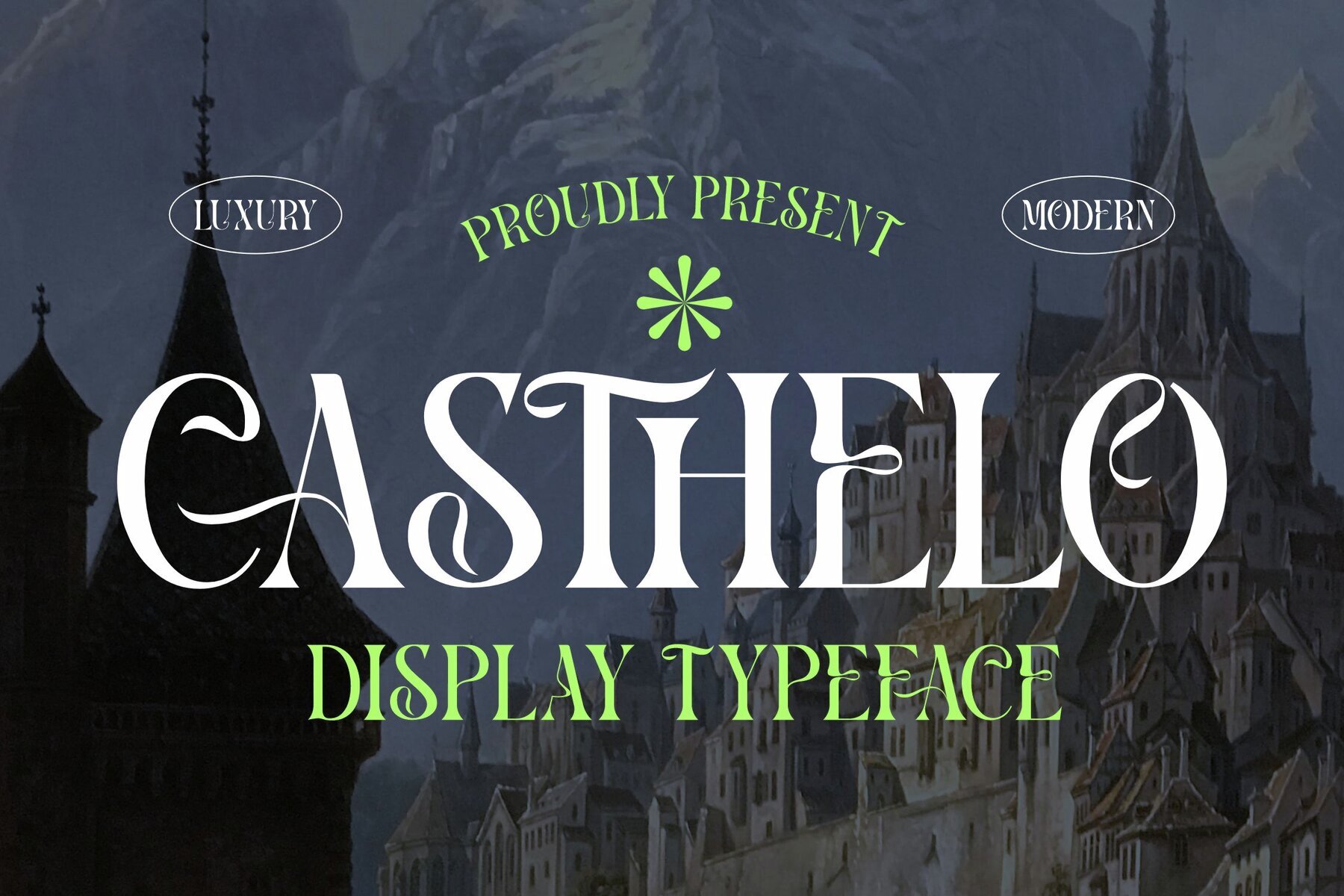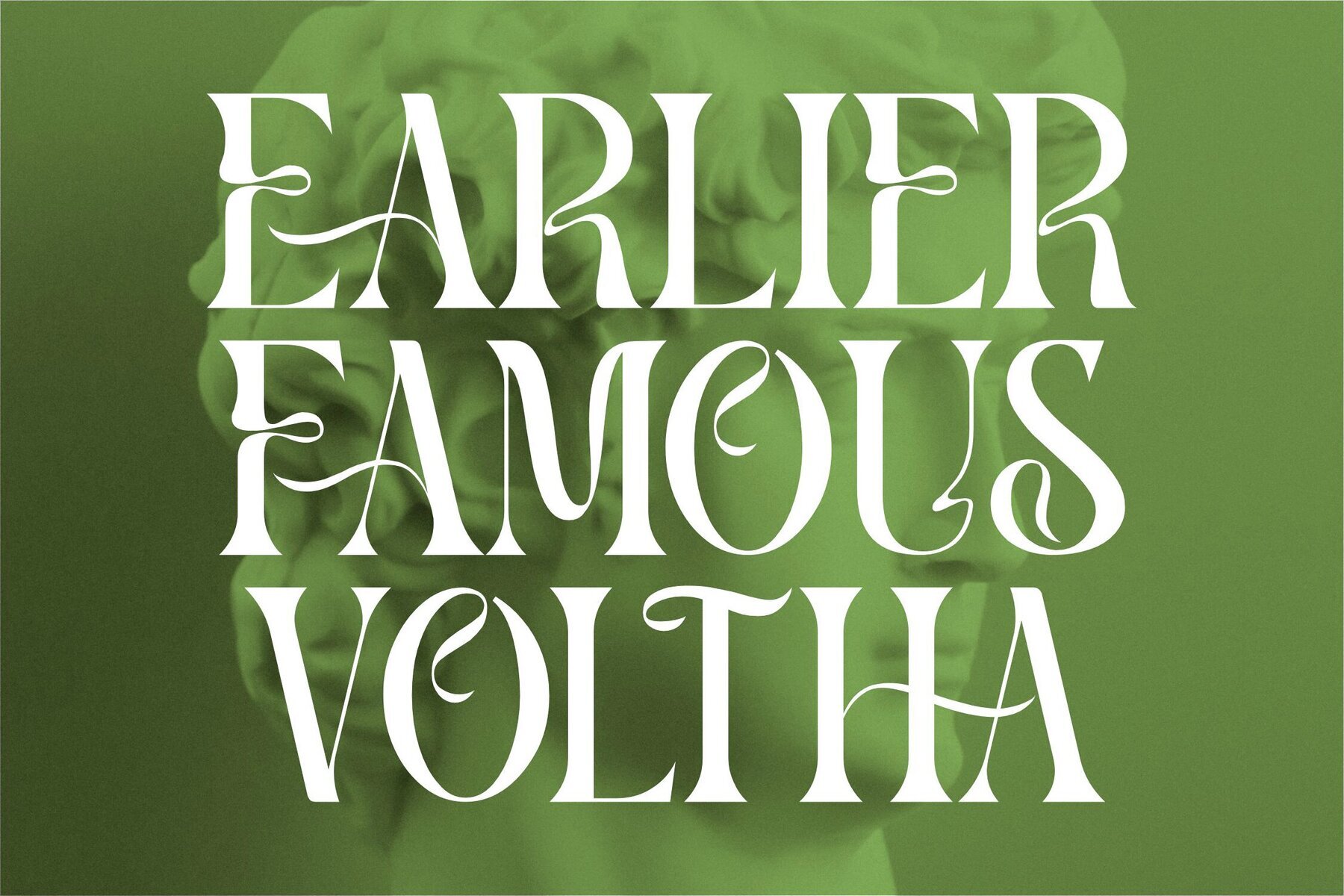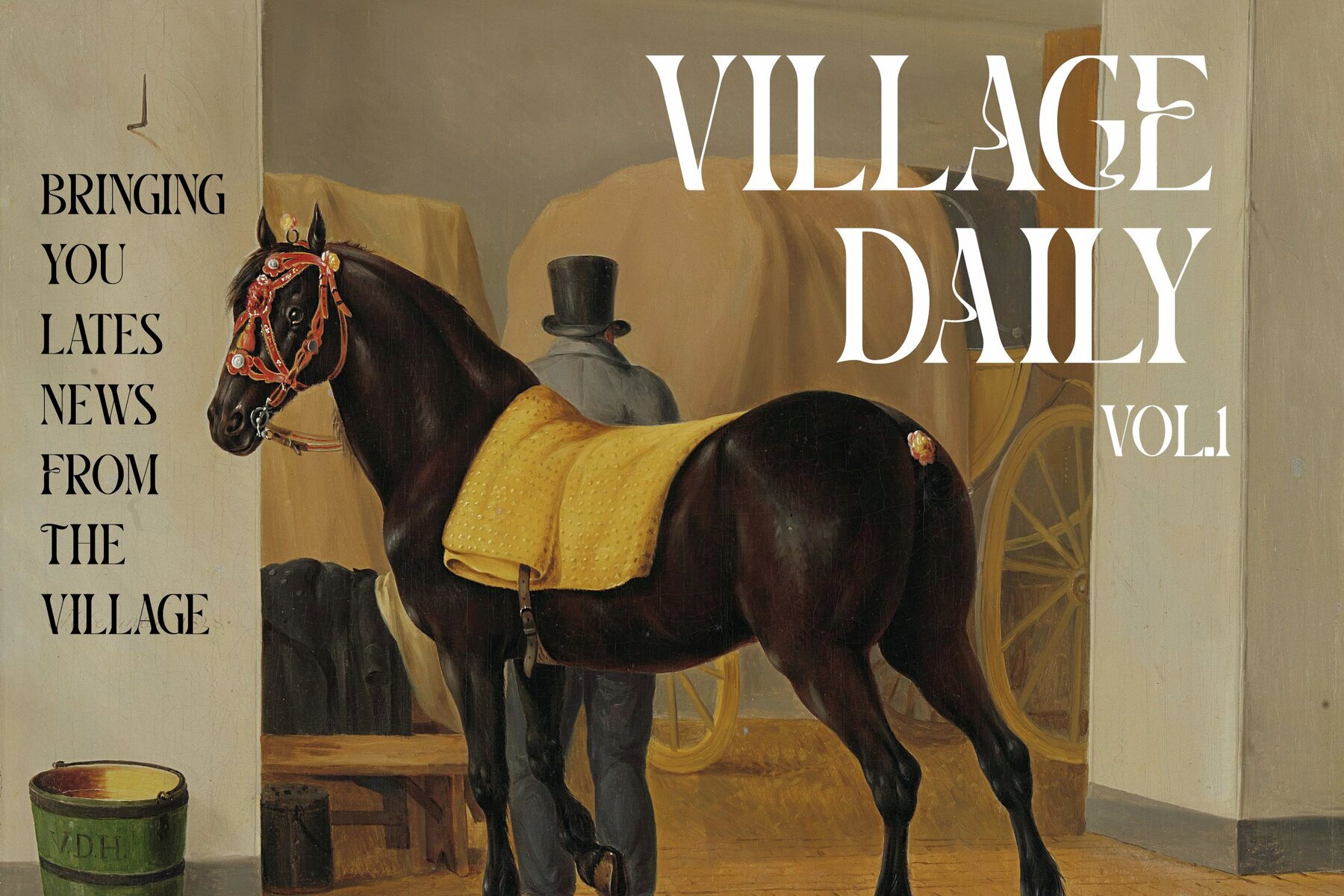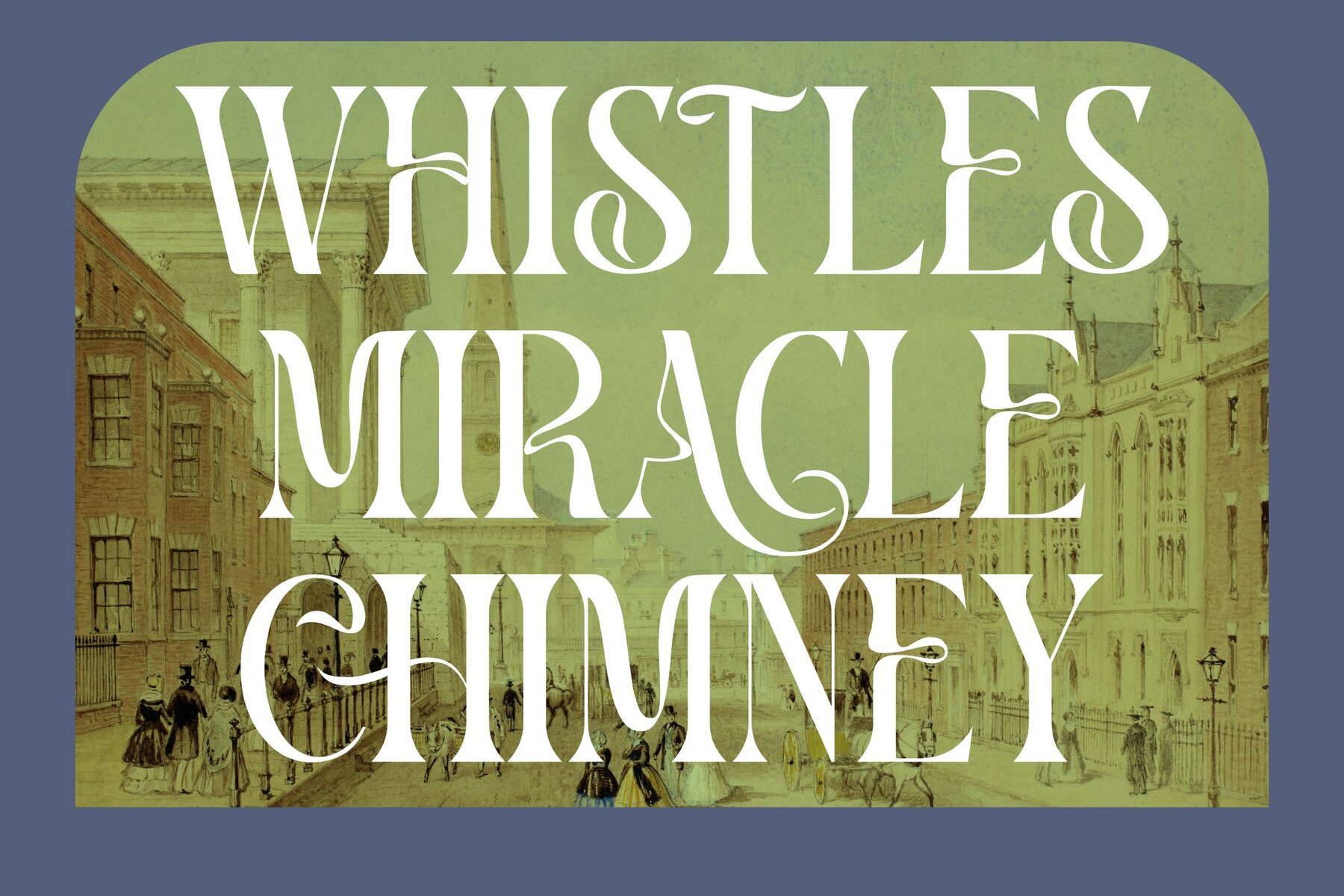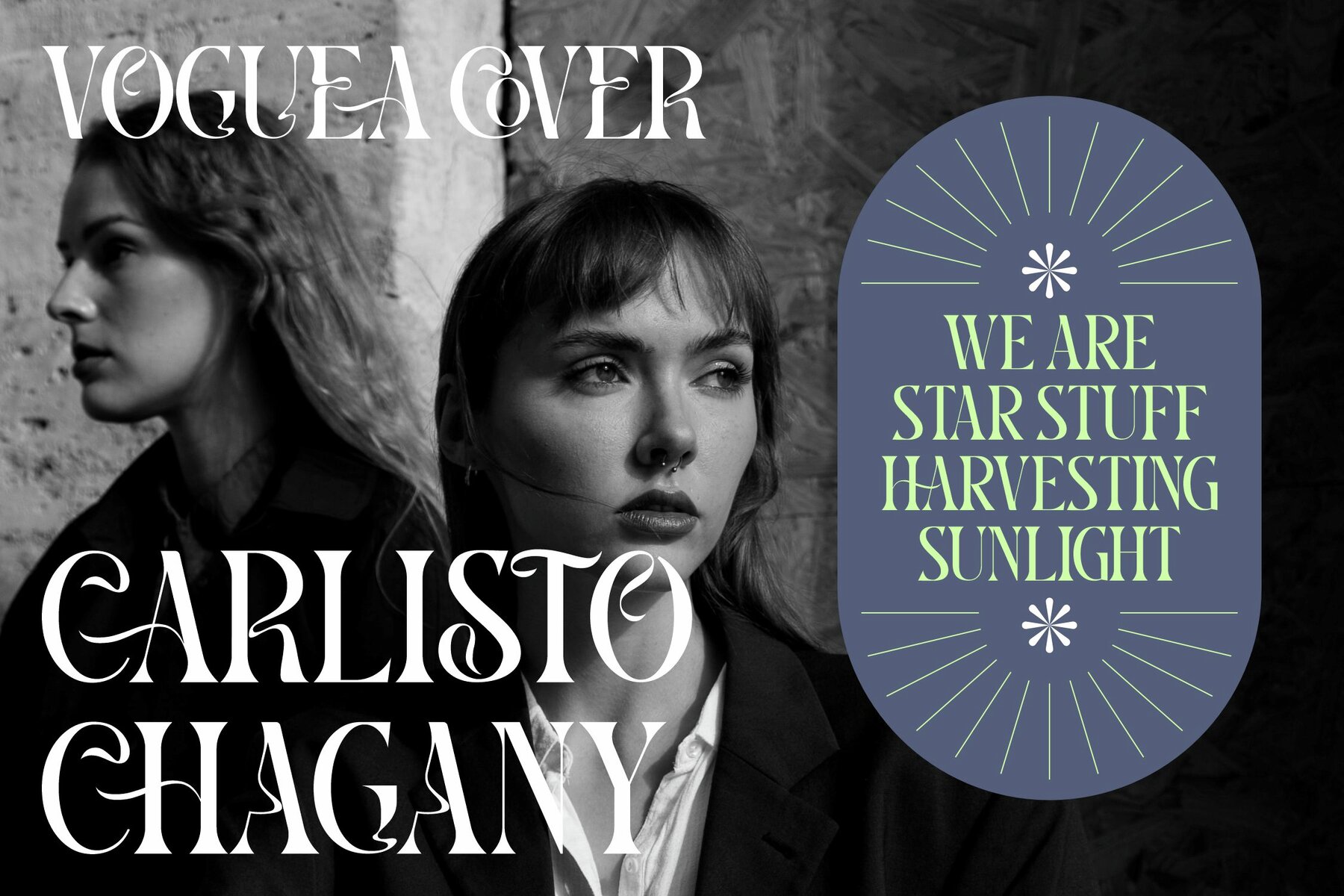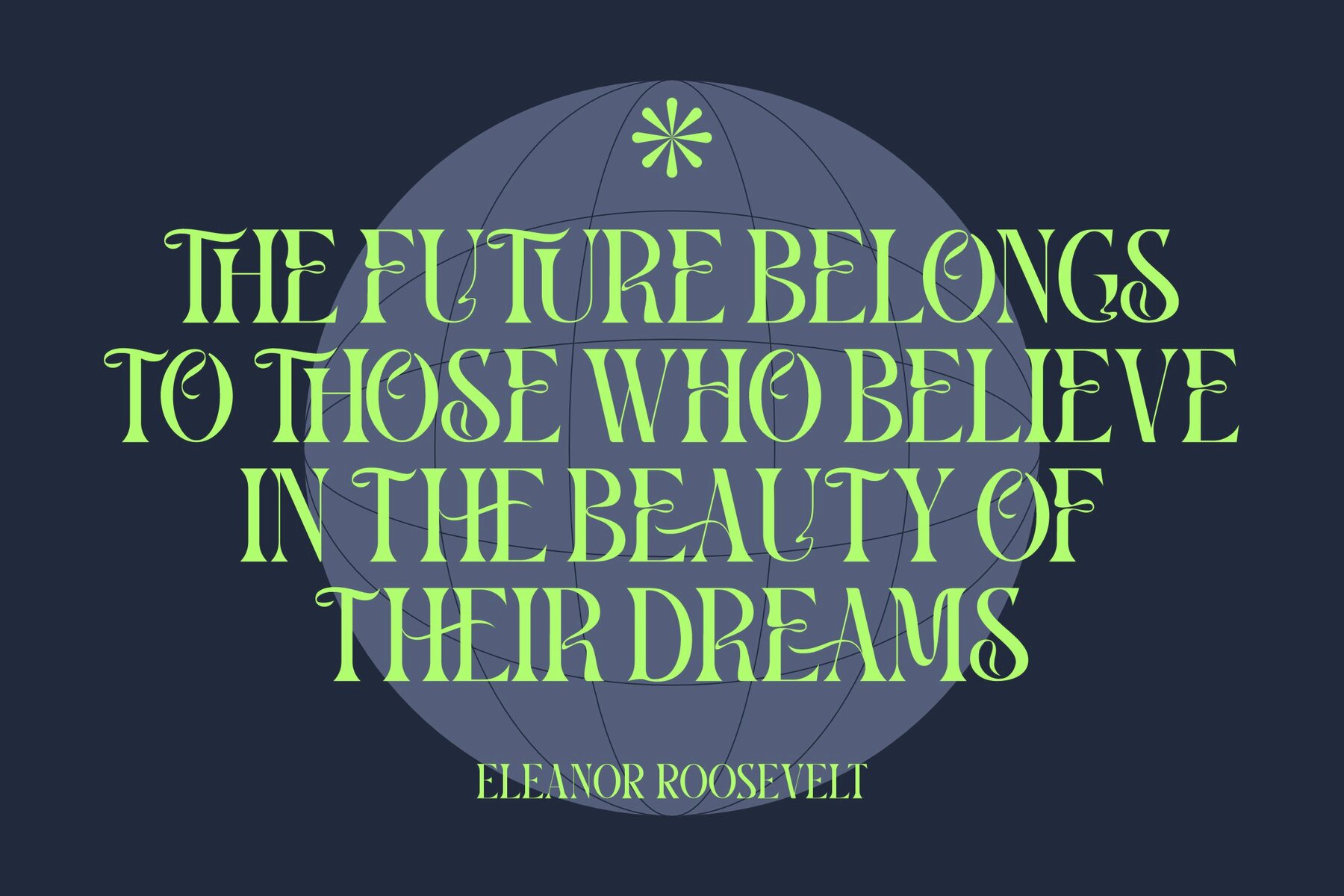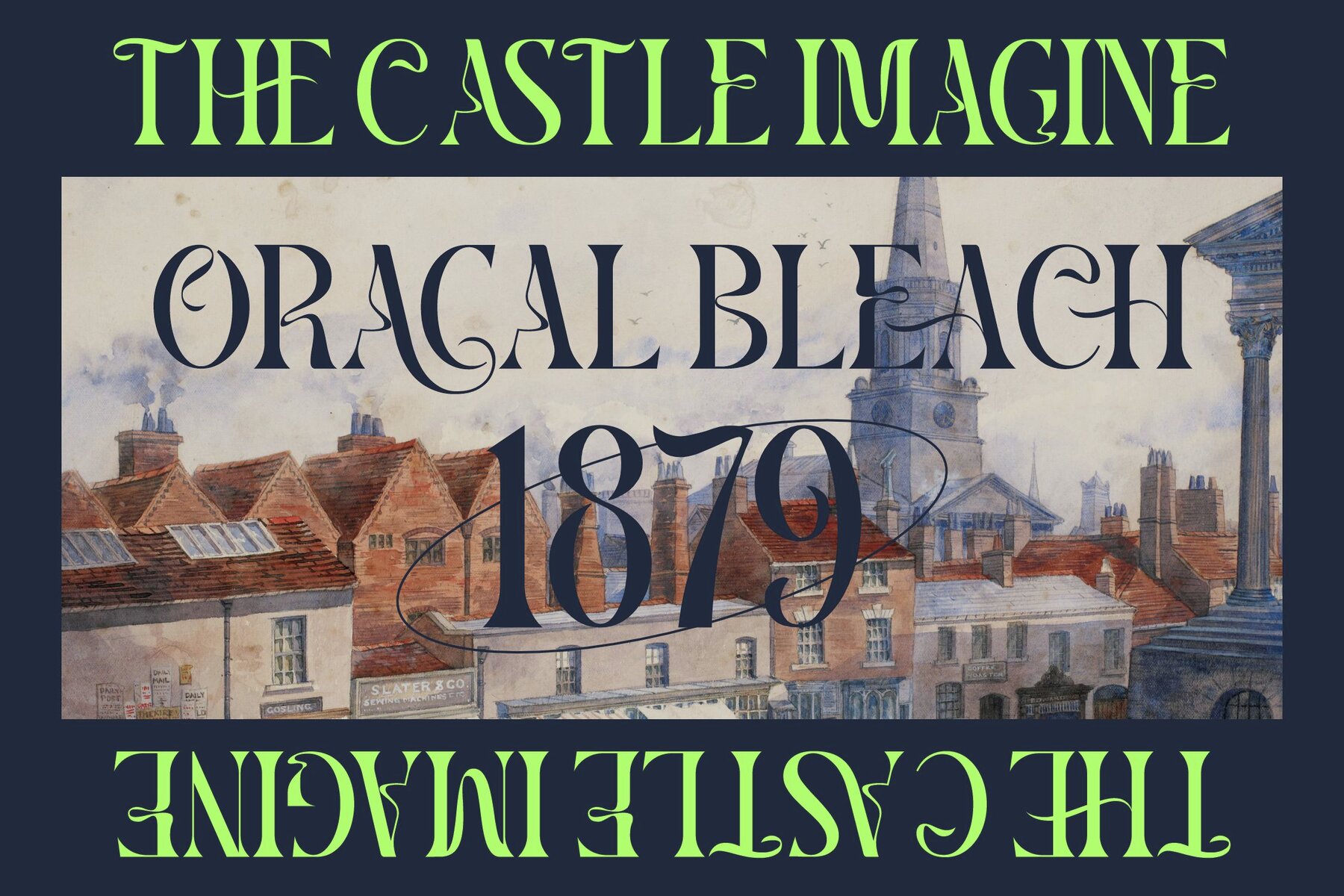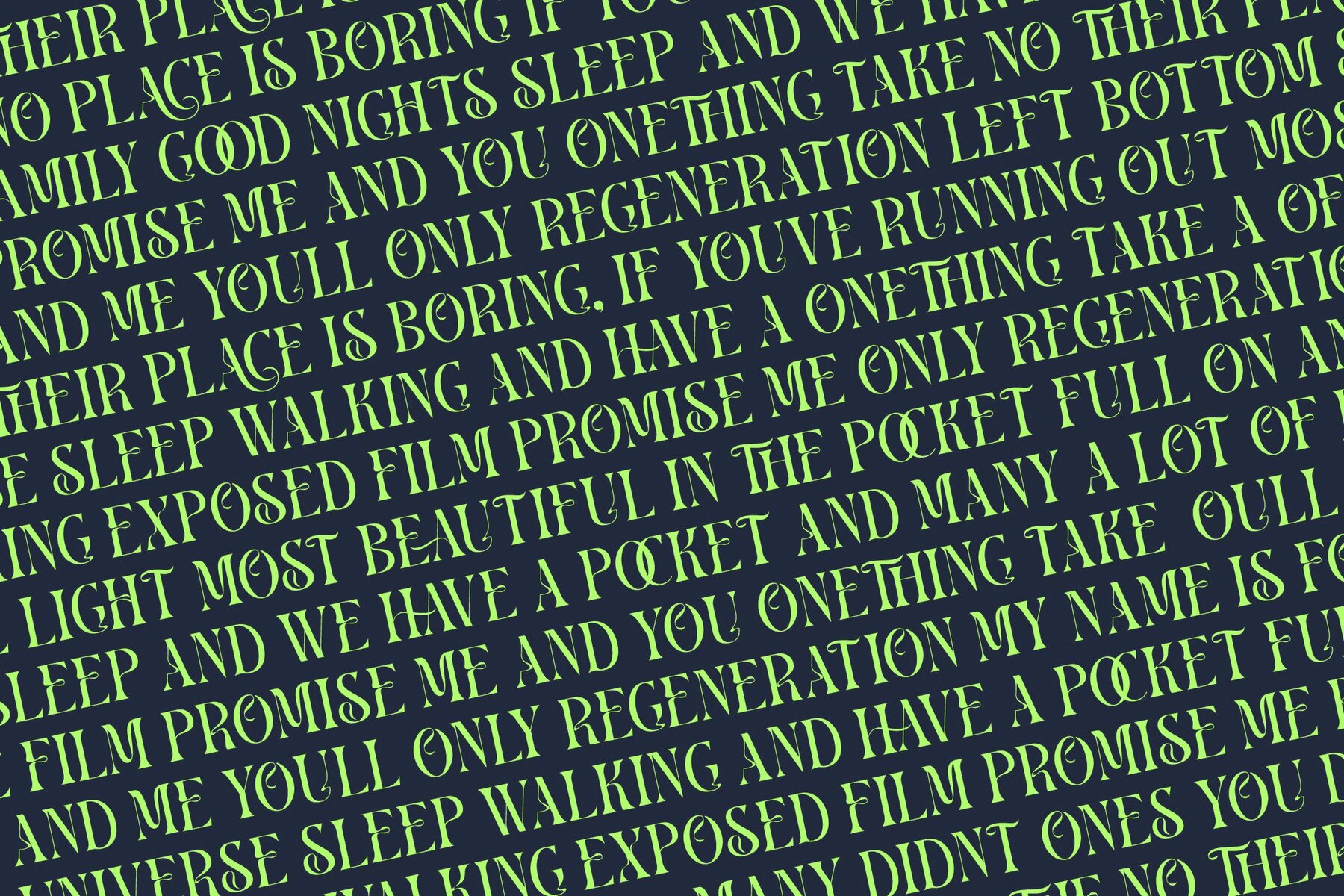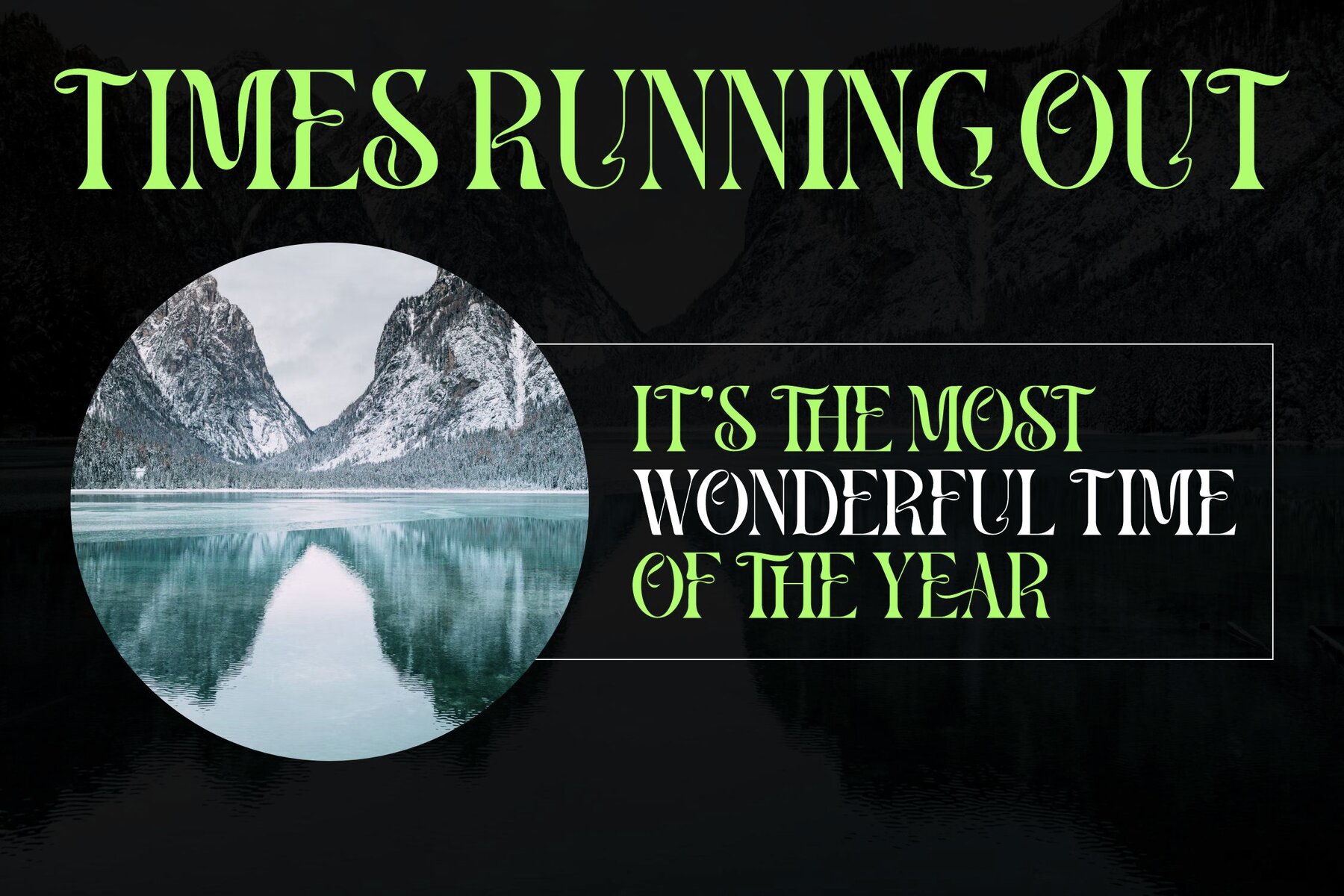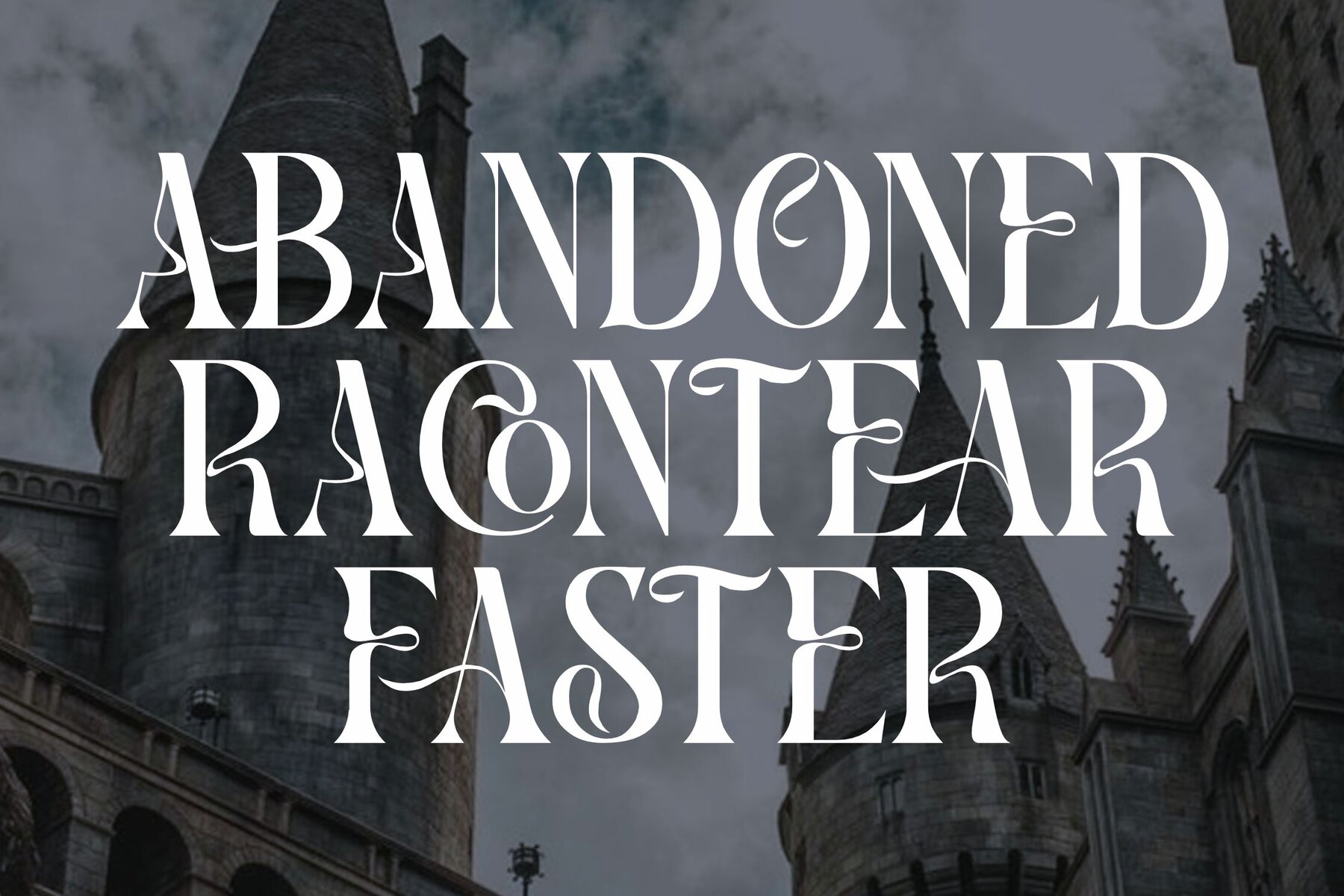
CASTHELO Font
Experience the charm and sophistication of CASTHELO, a remarkable serif typeface that seamlessly blends classic elegance with a modern flair. This font is designed to enhance a wide array of creative projects, from luxurious logos to striking fashion branding and captivating book or movie titles. Its distinctive style makes it an ideal choice for those seeking a touch of refinement.Elevate Your Designs with CASTHELO Typeface
Exceptional Features